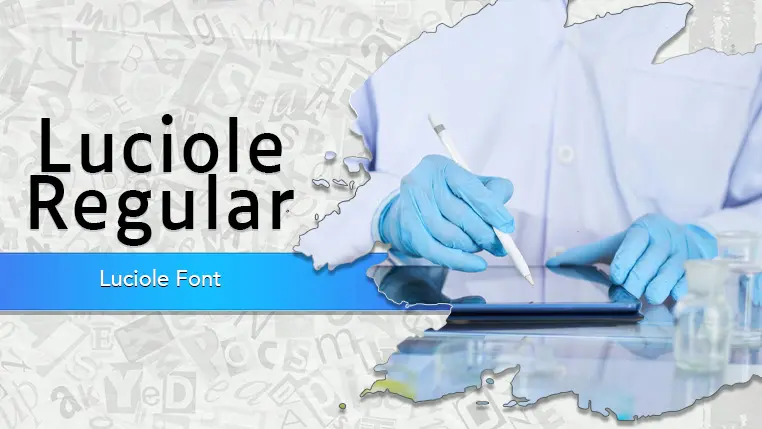
The Luciole font family may be ideal for you if you enjoy working on an artistic design project. The lively, expressive look of this typeface, which was created by Laurent Bourcellier x Jonathan Perez, makes it ideal for Educational Materials for Visually Impaired Students, Public Information Displays, Printed Materials for Low Vision Readers, Medical and Pharmaceutical Information And Government and Institutional Communications and other light-hearted visual projects.
Regular, Regular Italic, Bold, Bold Italic are the four primary font styles of the Luciole font family. You may build dynamic, visually appealing text layouts with the distinct flair that each style offers. With crisp, readable lines and a relaxed tone.